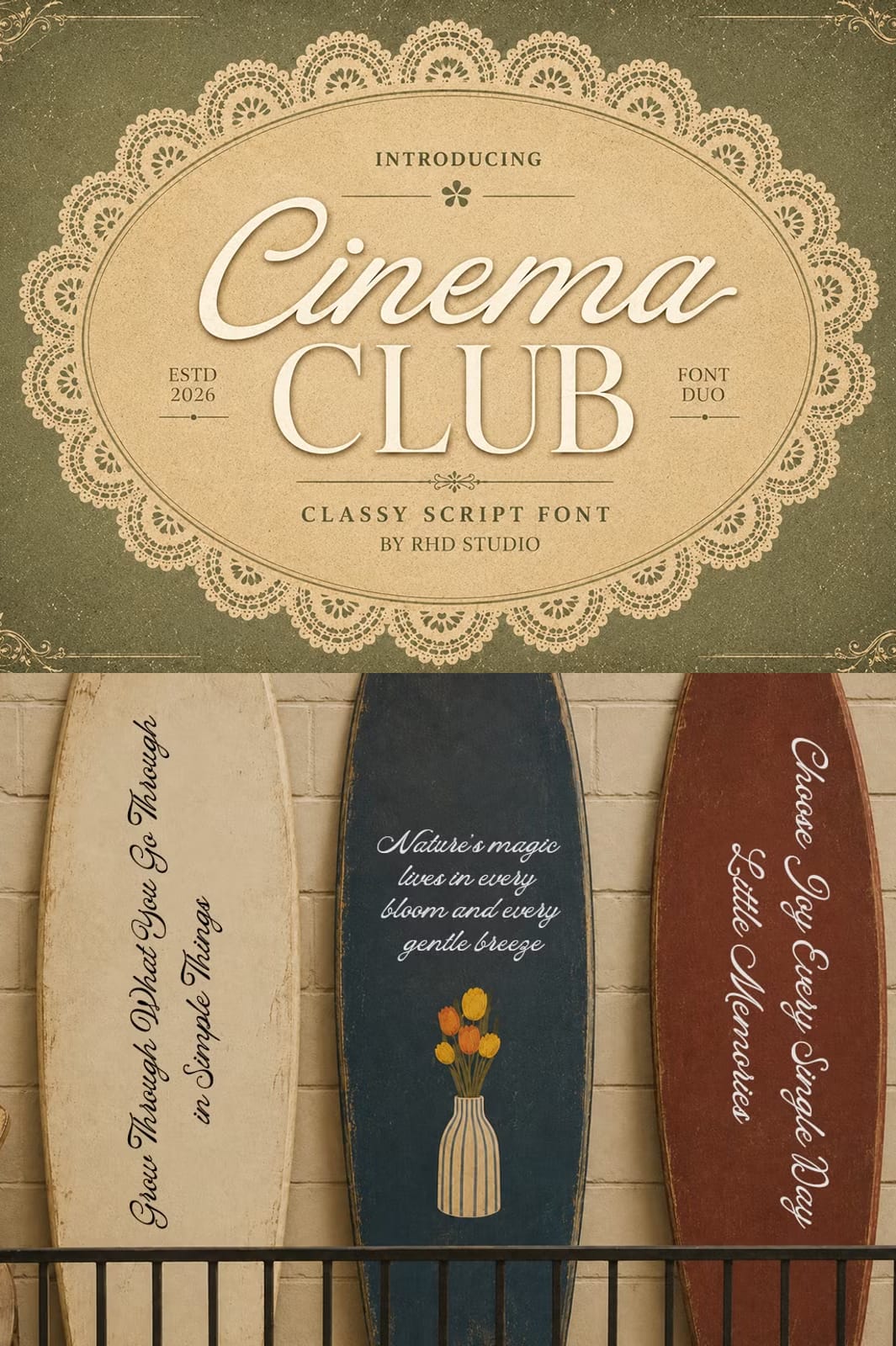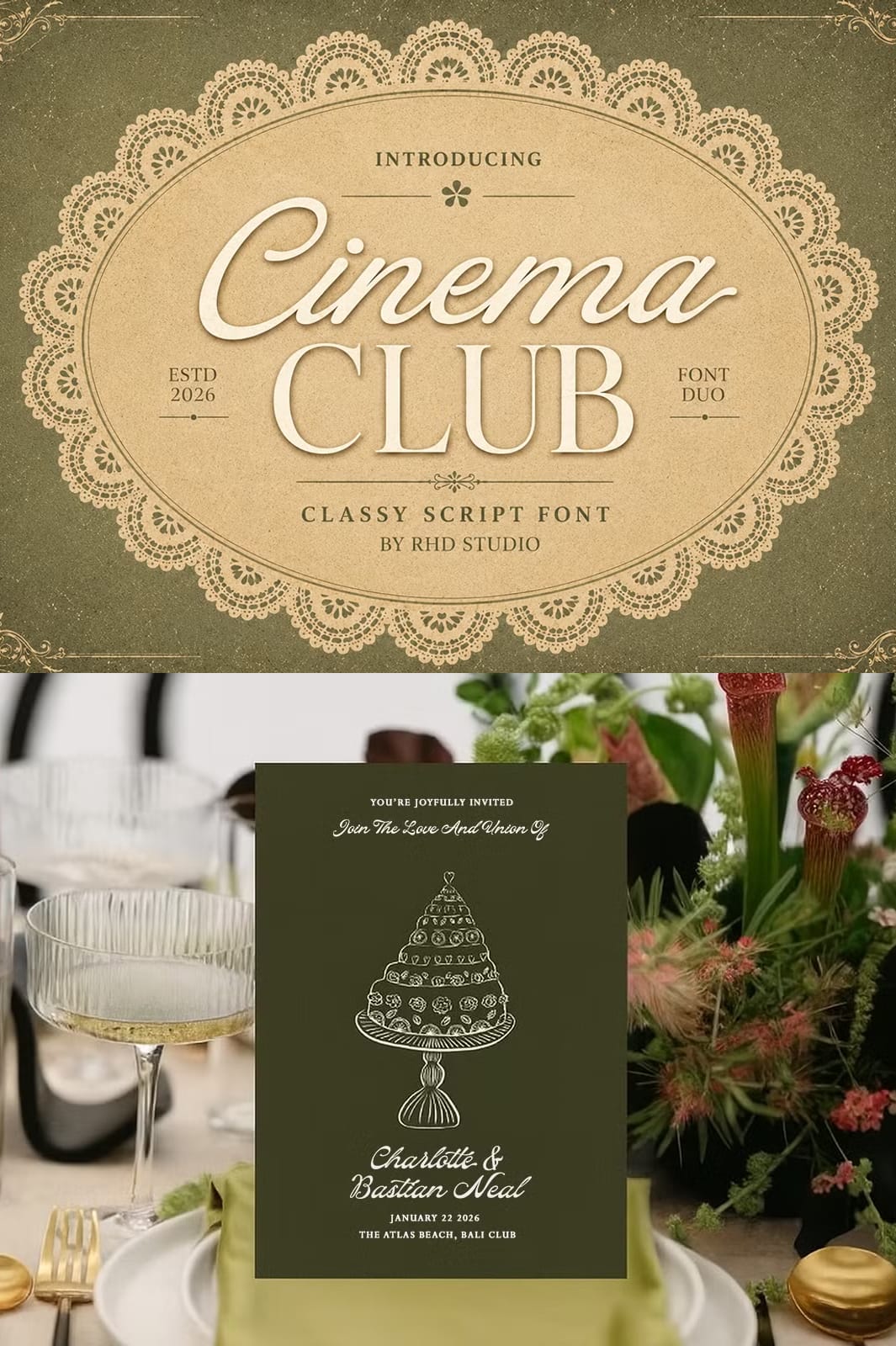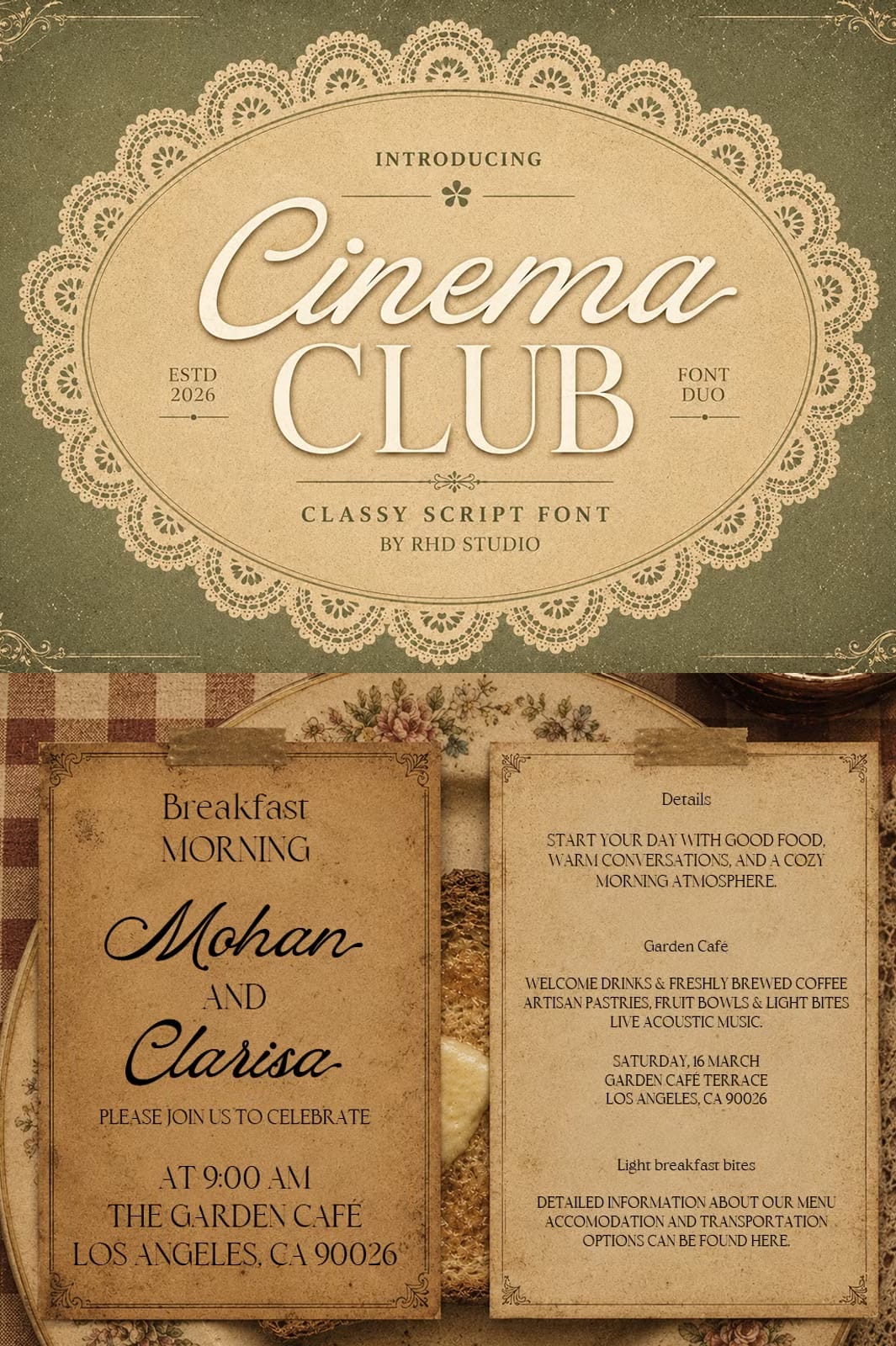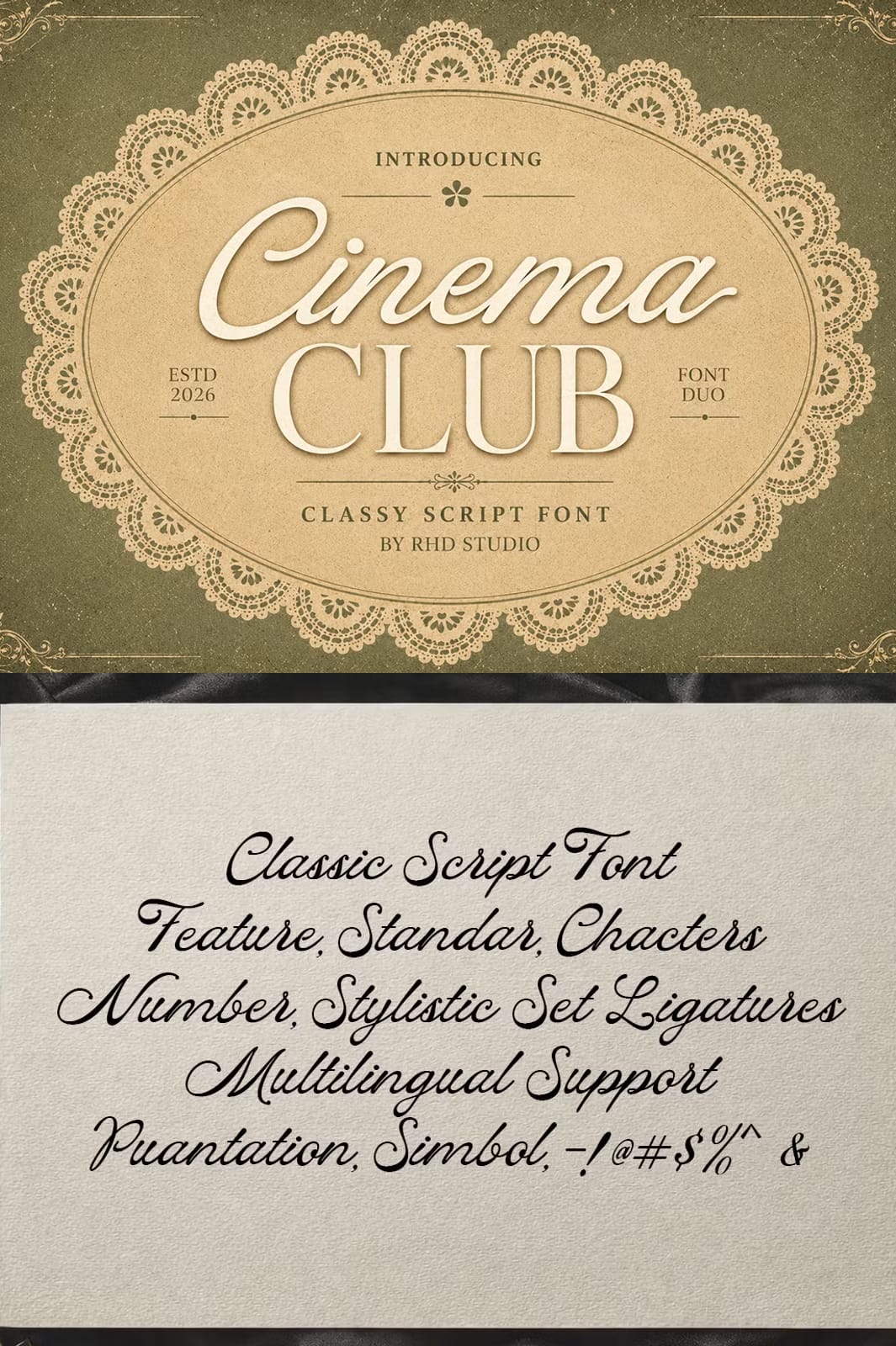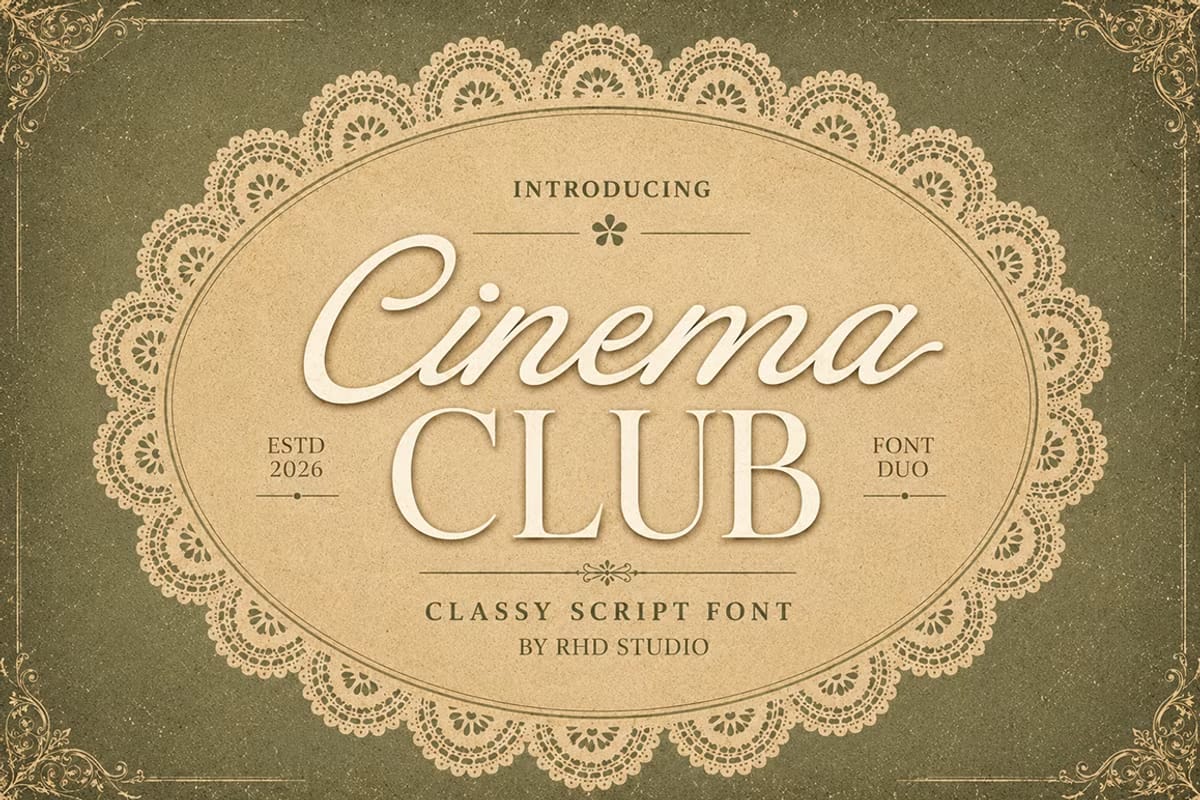
Cinema Club is an elegant duo font that combines a flowing, romantic handwriting style with a timeless vintage serif style—designed to bring elegance, warmth, and effortless charm to any design.
Perfect for branding, wedding stationery, packaging, editorial, and social mediaCinema Club offers a versatile typographic voice that feels both intimate and timeless. Every detail, from the subtle curves to the carefully designed alternates, is crafted to elevate your work with a graceful, handmade touch.